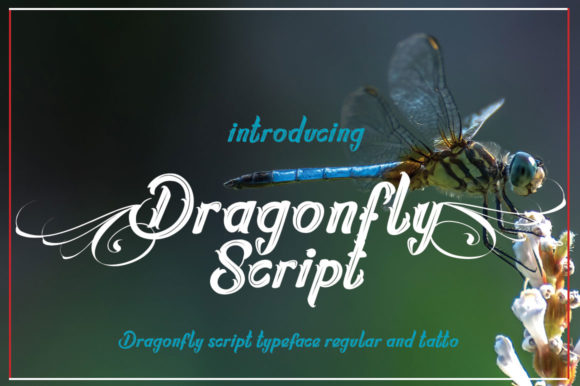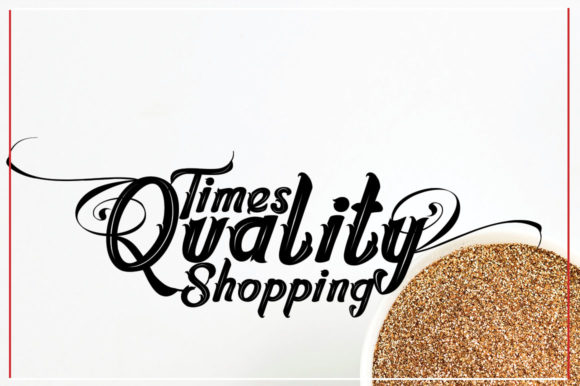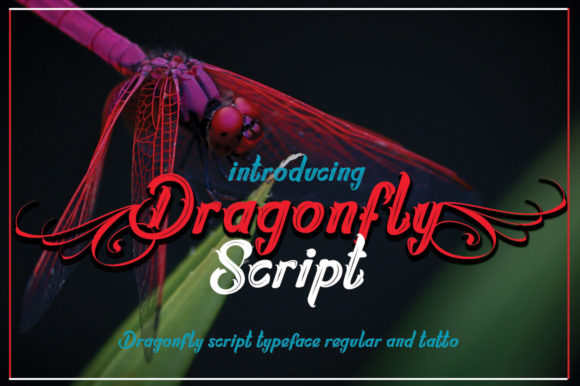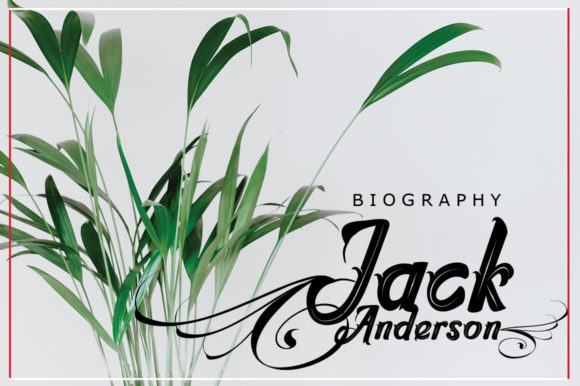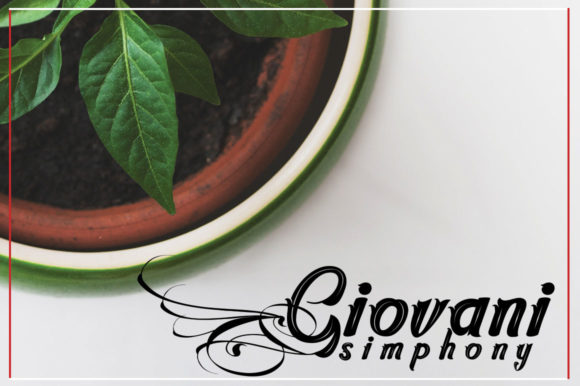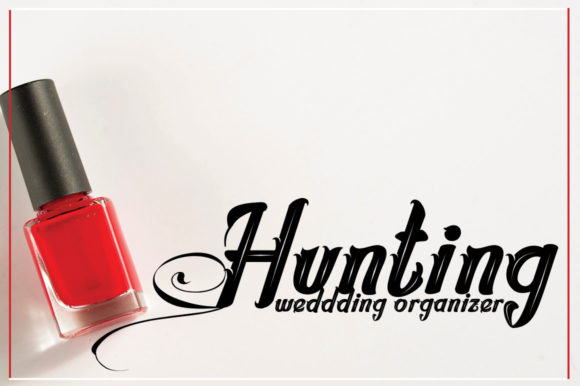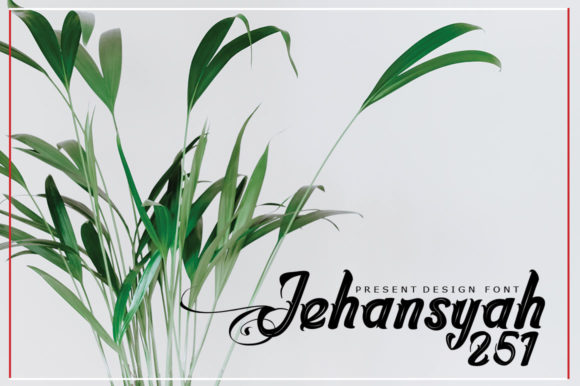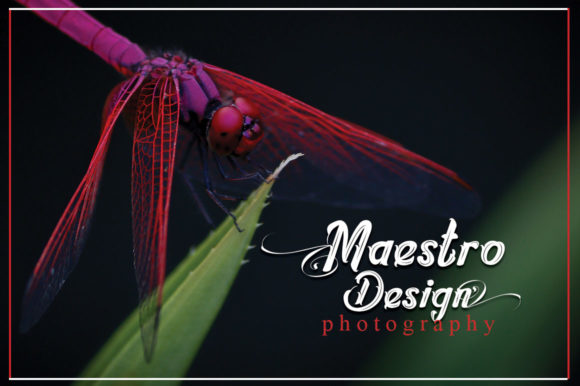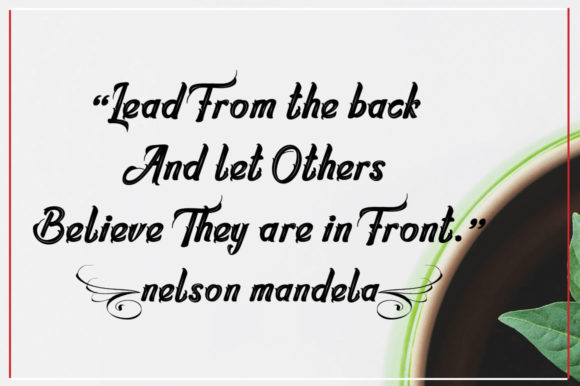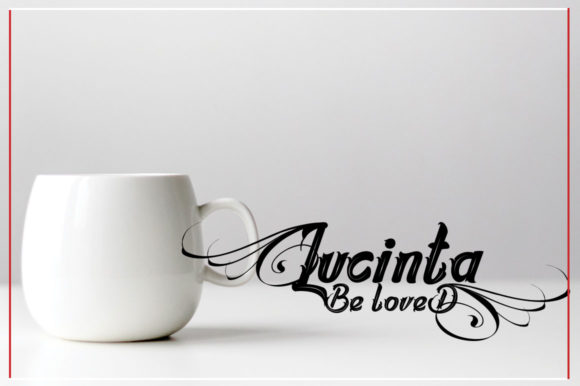
Dragonfly Script Font
About Dragonfly Script Font
Dragonfly is a beautiful and unique handwritten font with a light feel. It will add a personal twist to any design project!